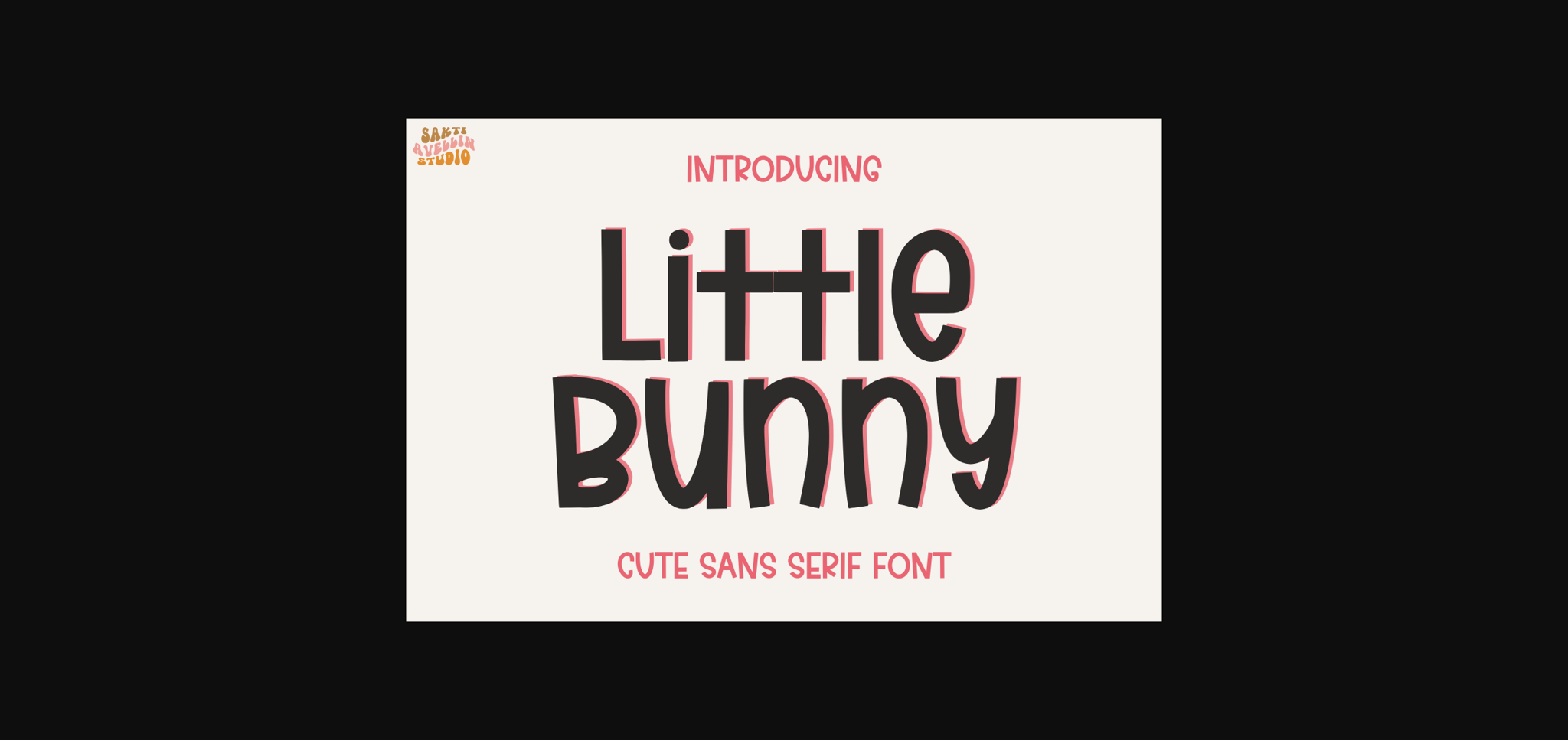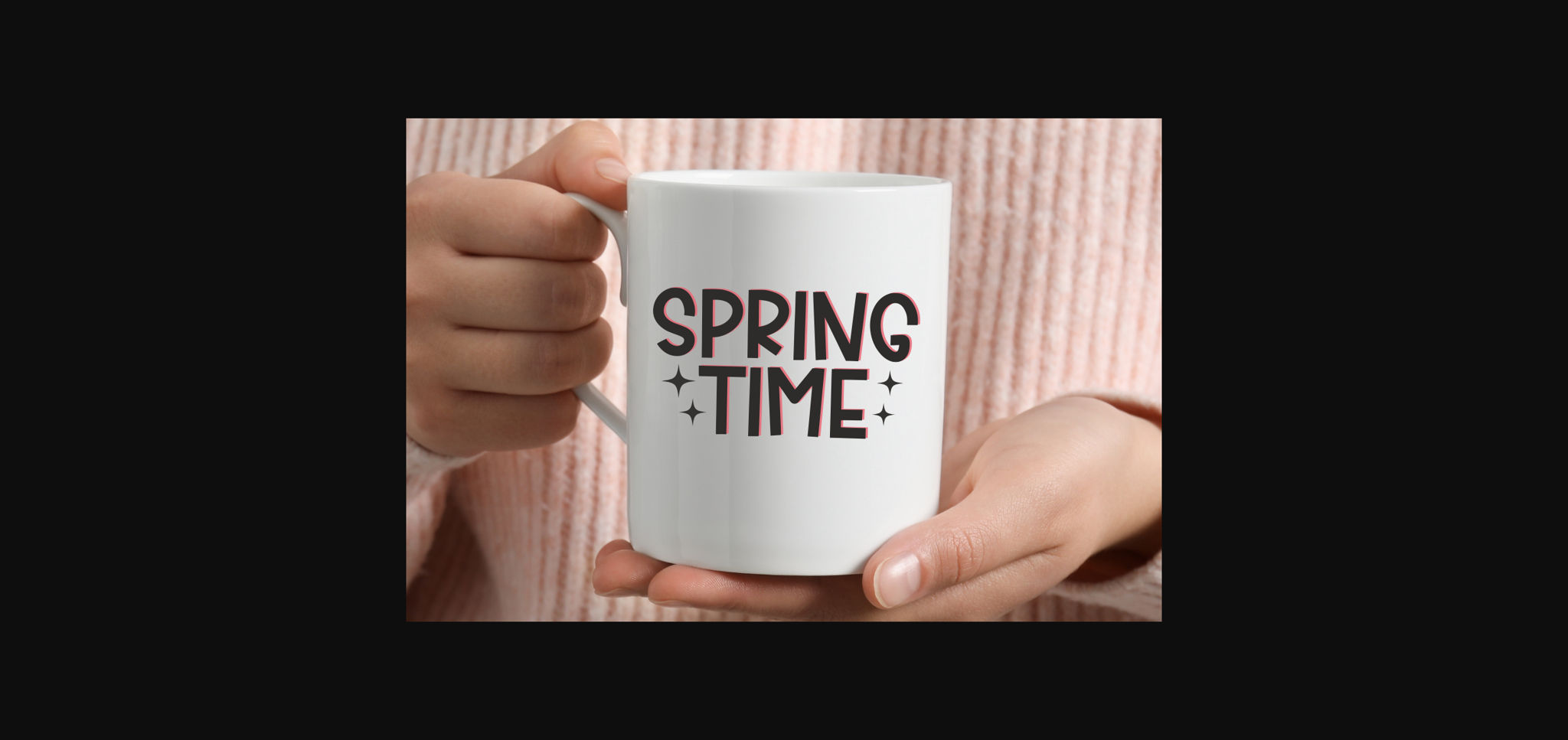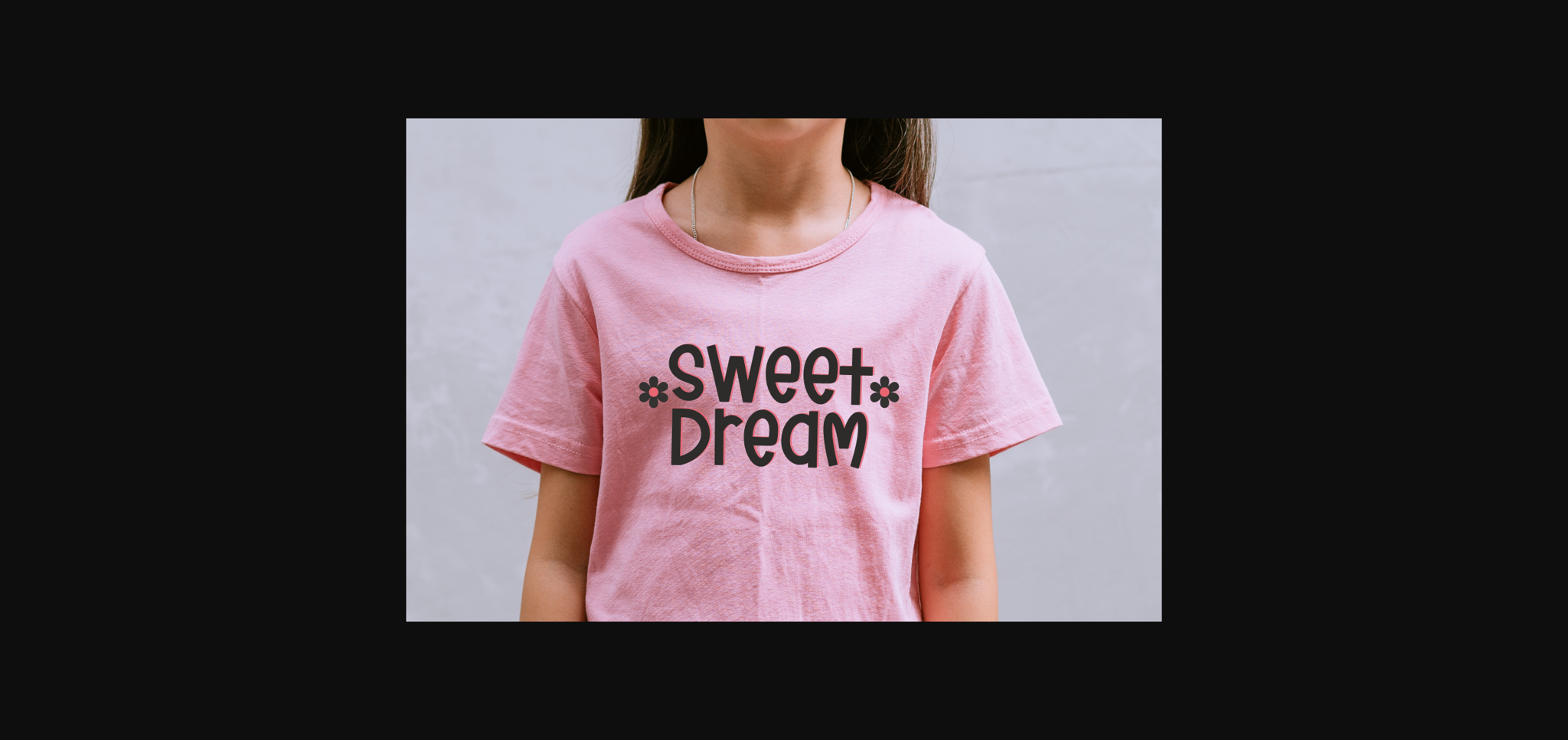
About Little Bunny Font
Little Bunny is an adorable sans-serif font that exudes charm and playfulness. Perfect for adding a whimsical touch to your Easter quotes or injecting an element of sentimentality into your Valentine’s Day message, Little Bunny is your go-to typeface. From enhancing crafts and tumbler designs to bringing a fresh, fun feel to mugs and t-shirts, this versatile font enhances your creativity and reimagines the way you express your ideas. With Little Bunny, every creation becomes a touching masterpiece.